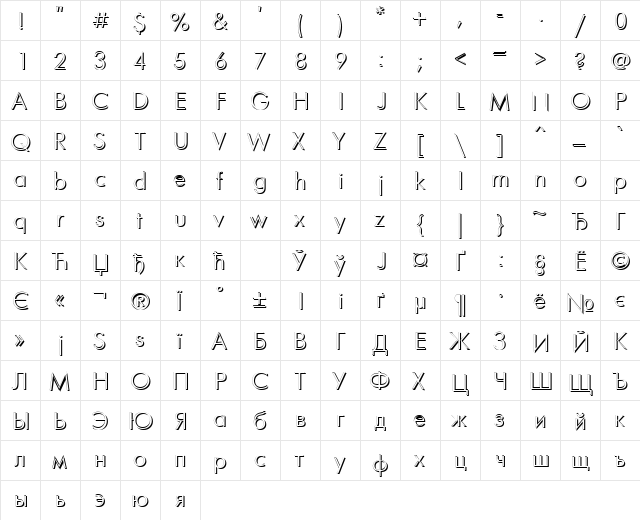
FuturisShadowC Normal Font Preview
FuturisShadowC Normal
FuturisShadowC Normal Font Details
Design Context for FuturisShadowC Typeface
FuturisShadowC channels digital-age aesthetics through its sharp, structured letterforms — ideal for brands that want to signal innovation.